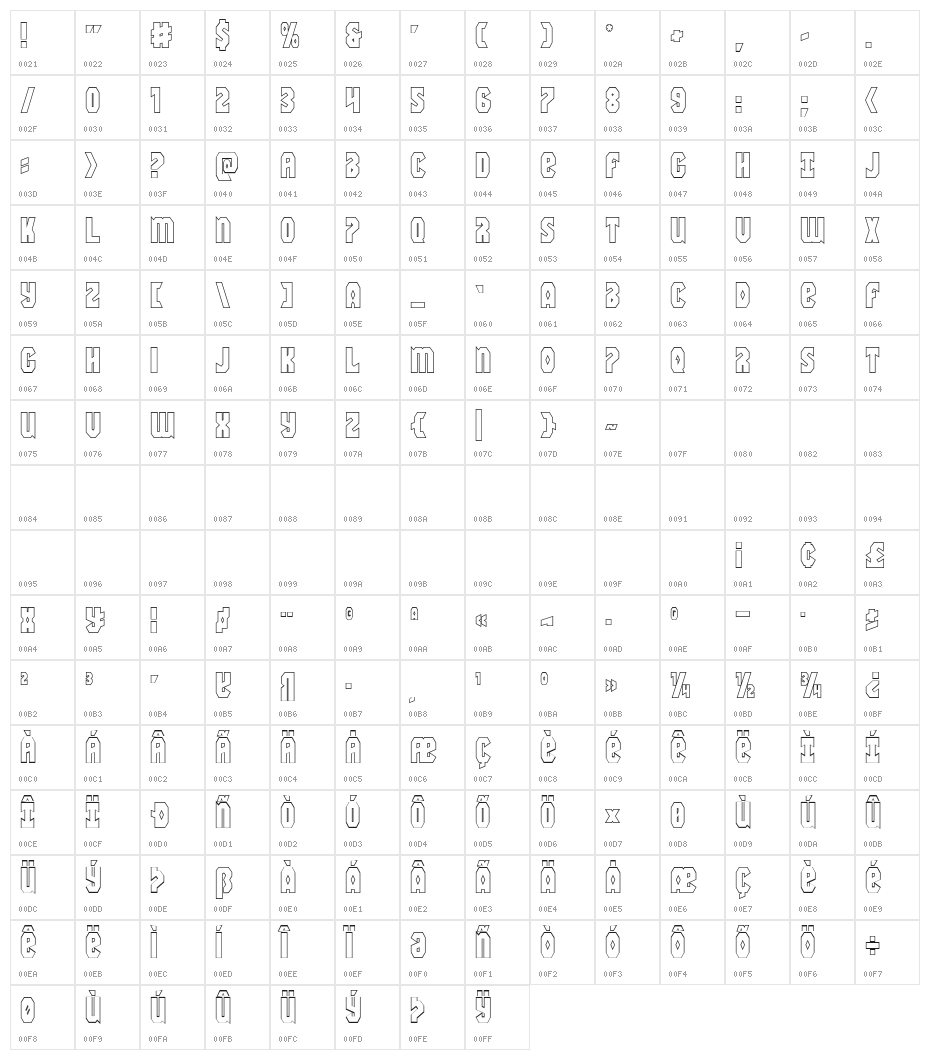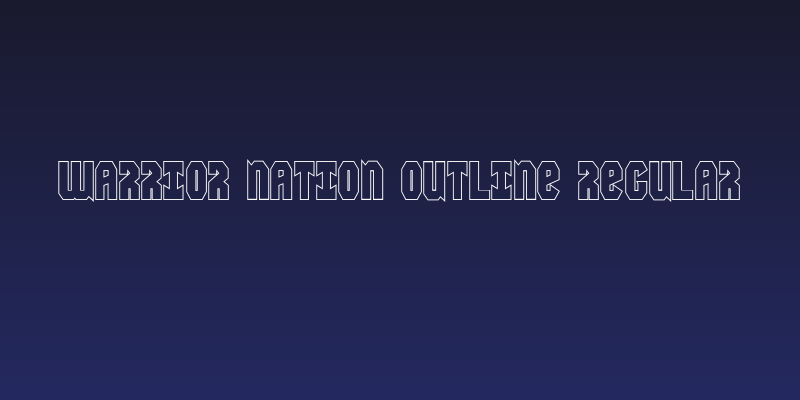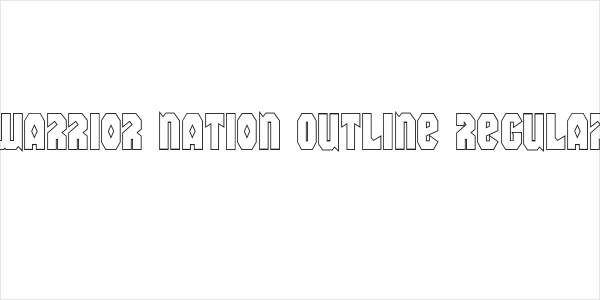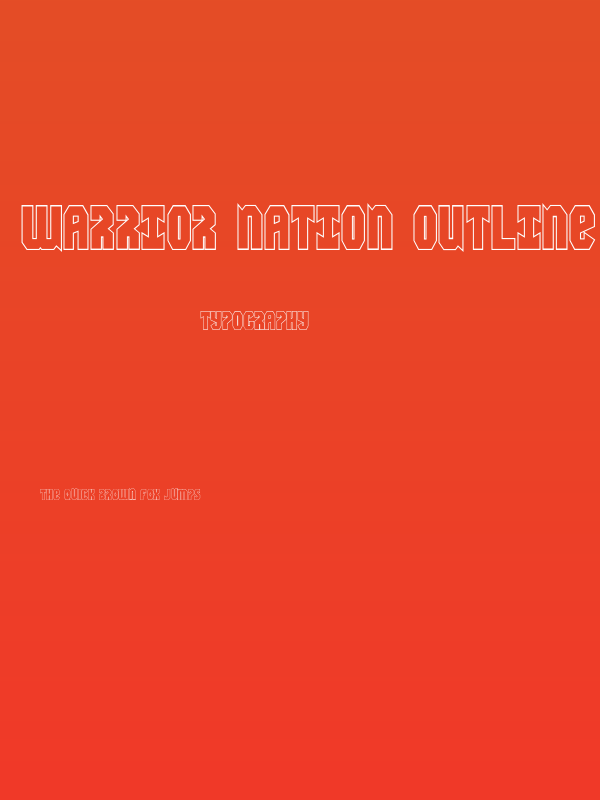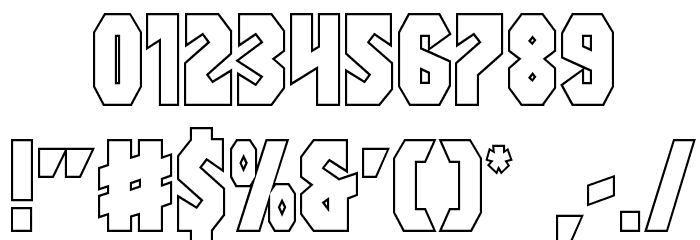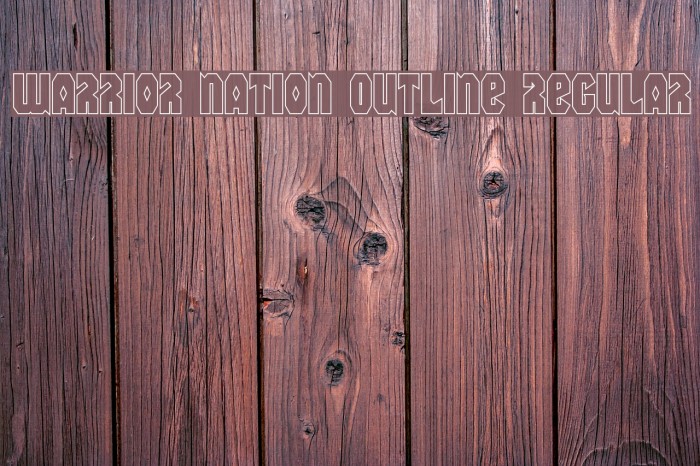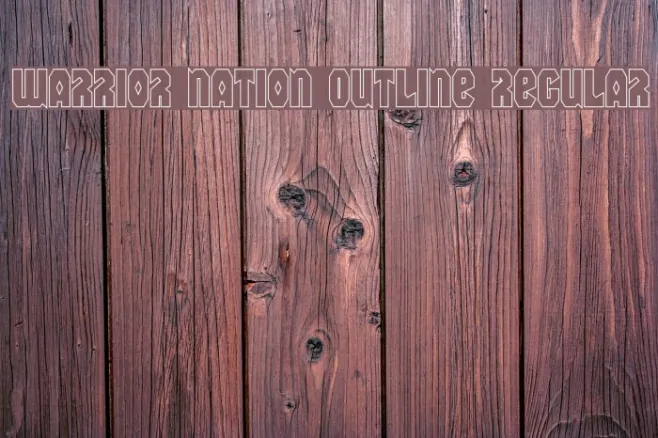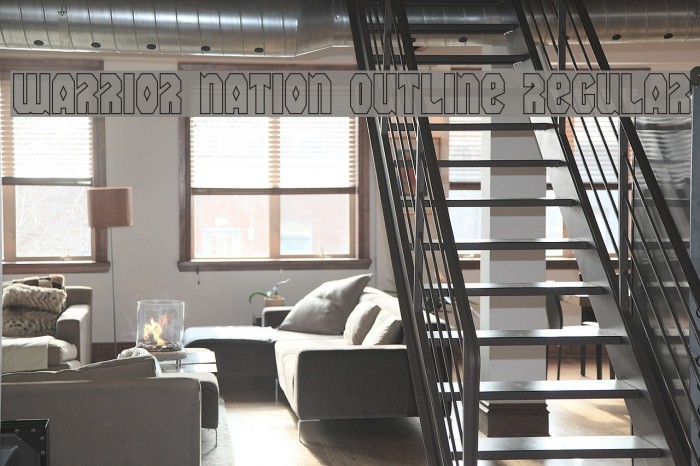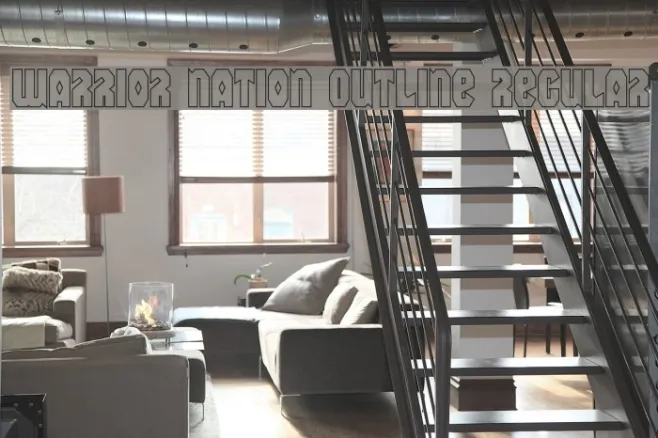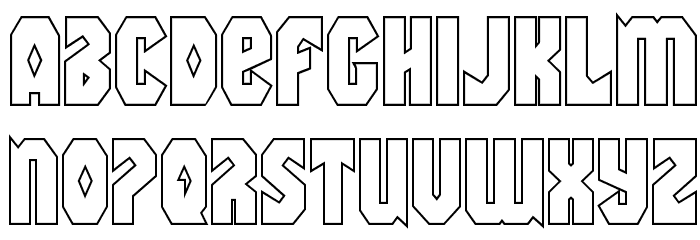
Warrior Nation Outline Regular Font
Warrior Nation Outline Regular Description
This font features a bold, geometric outline style with sharp angles and a strong presence. Each character is defined by thick, consistent lines that create a striking silhouette, making it ideal for attention-grabbing designs. The uppercase letters are uniform in height, while the numerals and special characters maintain the same bold outline, ensuring visual consistency across all elements. The font's design is reminiscent of a futuristic or industrial aesthetic, with a focus on clarity and impact.
| Proposed Projects | Ideal for posters, logos, video game titles, and any project requiring a strong, impactful typeface. |